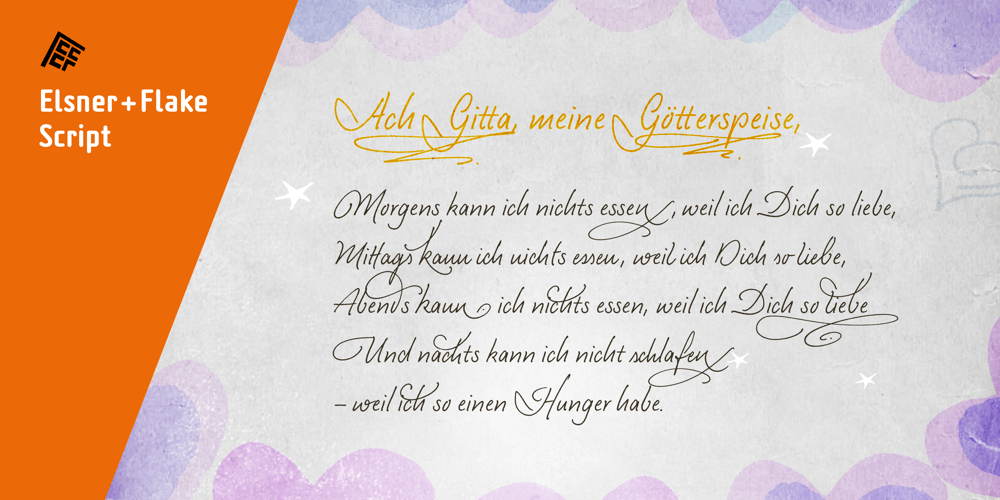
EF Casanova Script Pro
EF Casanova Script Pro font
EF Casanova Script Pro Font Family was designed by Günther Flake, Petra Beiße and published by Elsner+Flake. EF Casanova Script Pro contains 1 styles and family package options. The handwritten cursive by the famous Italian Casanova has inspired Petra Beiße to design a new script, the “Casanova Script Pro”, with a complement of over 1400 characters and symbols. “Petras Script”, the first digital script font created by the calligrapher Petra Beiße, has, for many years, met with worldwide success. Petra Beiße has resided for a long time in Wiesbaden, Germany, where she is working as a renowned calligrapher. It is rare that any of her scripts are transferred into digital format and sold worldwide as fonts. Because “Petras Script” became such a huge success, she decided to release this new design for digitization. Under the guidance of Günther Flake, Jessica Franke enlarged this font to contain over 1400 characters. Further information about Petra Beiße and her present workshops can be found under www.handlettering.de.